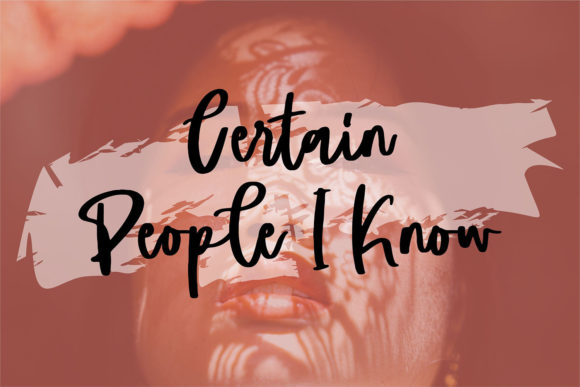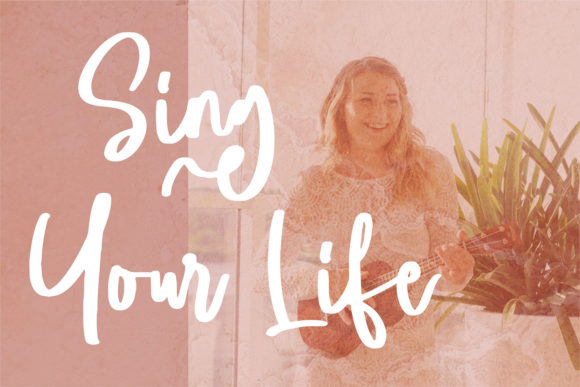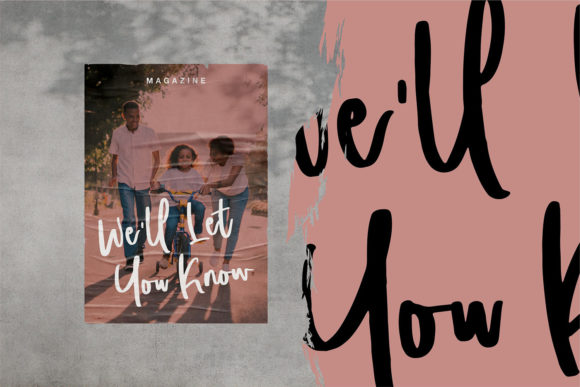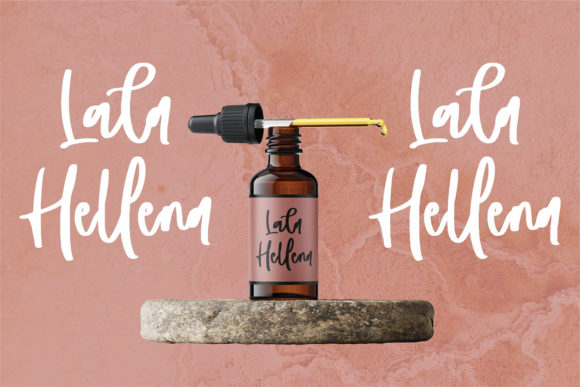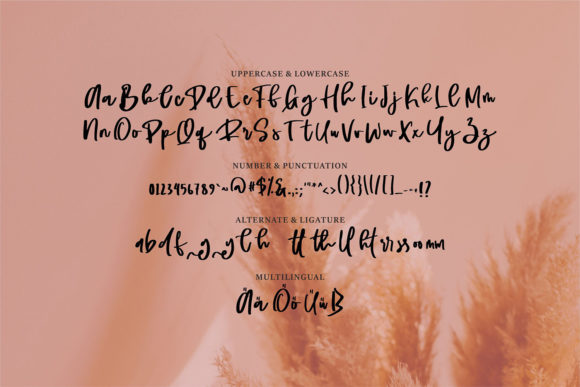
Introduction to Mulyadi Font
Mulyadi is a modern, whimsical and thick lettered paint brushed script font.
Its authentic handwritten look and feel will add a personal and realistic feel to your designs Fall in love with this fontโs incredibly versatile style and use it to create spectacular designs.
Key Features of Mulyadi Font
Why Choose Mulyadi Font?